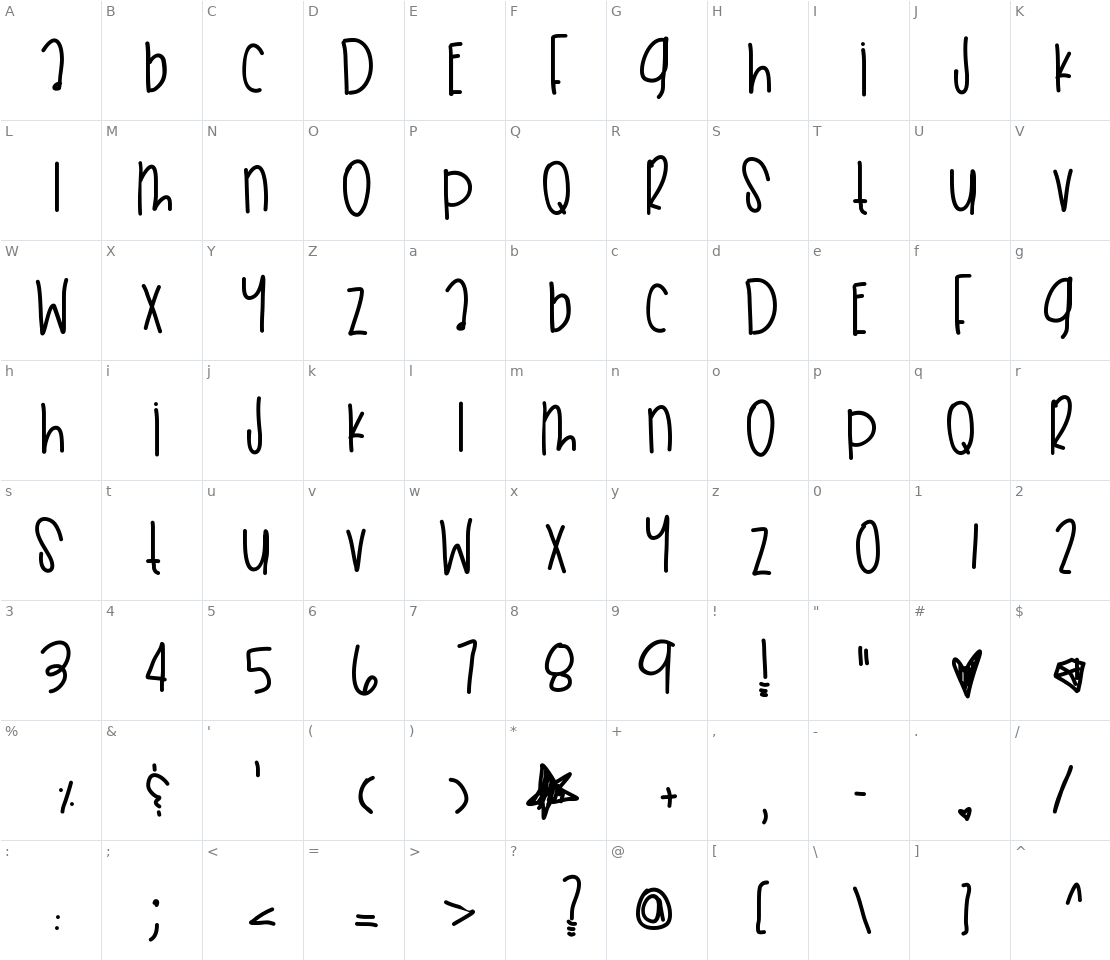
Sky Dunk Wishes
by Des Gomez
Sky Dunk Wishes is a thin, casual handwritten face from Des Gomez with a quirky, slightly bouncy rhythm that keeps things feeling spontaneous. The lightweight strokes give it an airy, informal personality, closer to someone doodling in the margins of a notebook than careful calligraphy. Best used as a display face for invitations, social media graphics, or branding that wants to feel personal and unguarded.